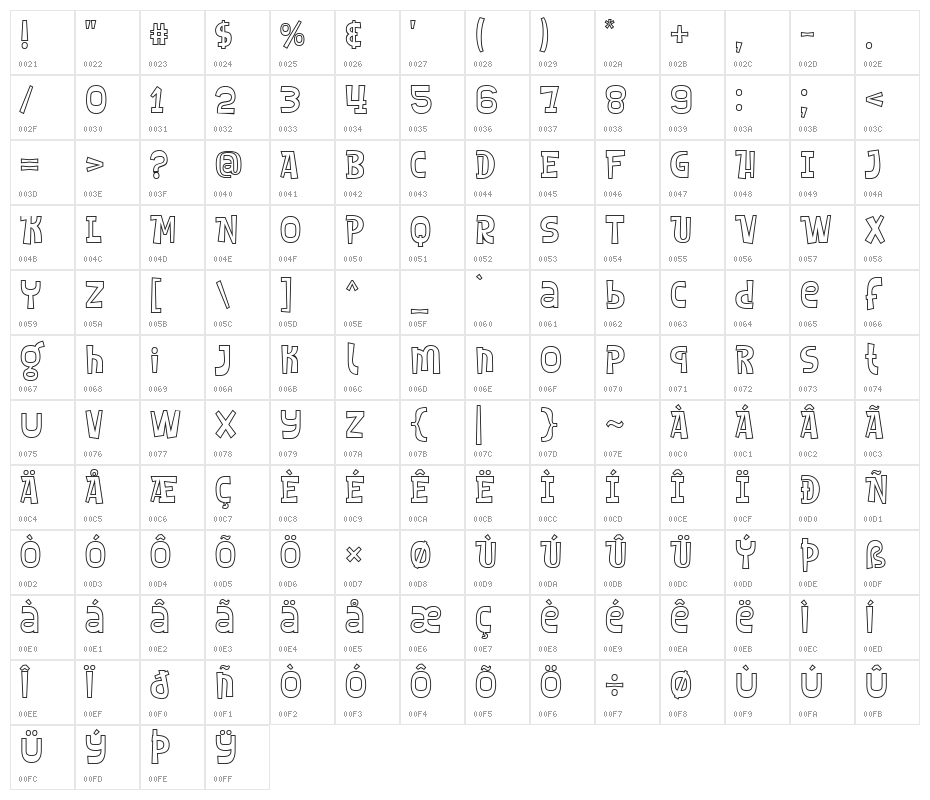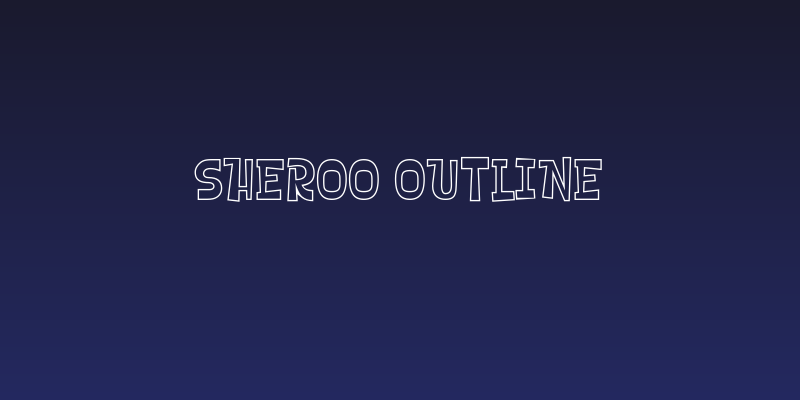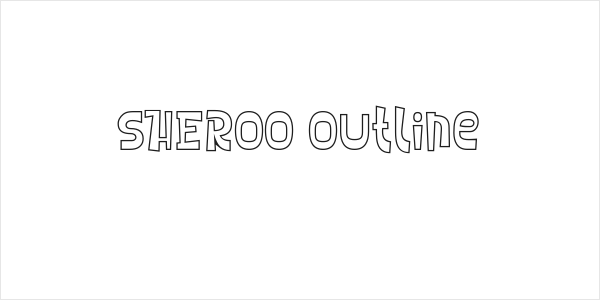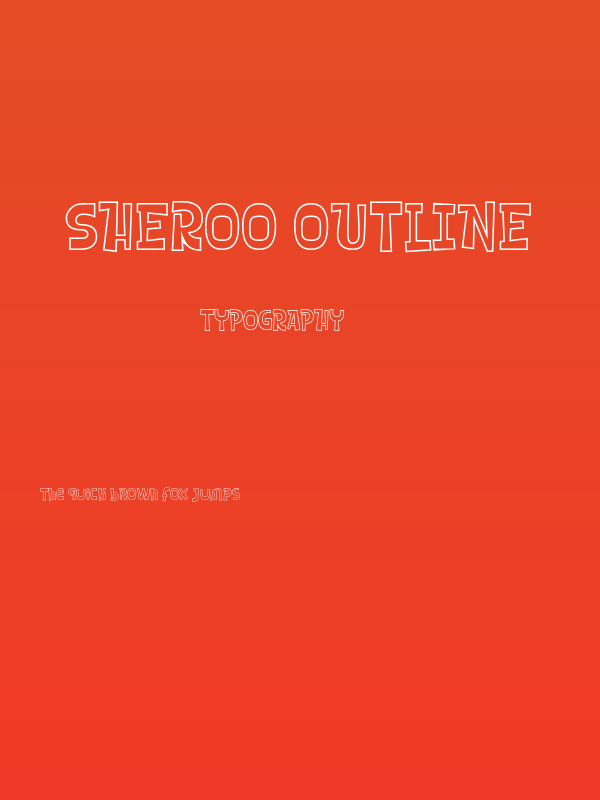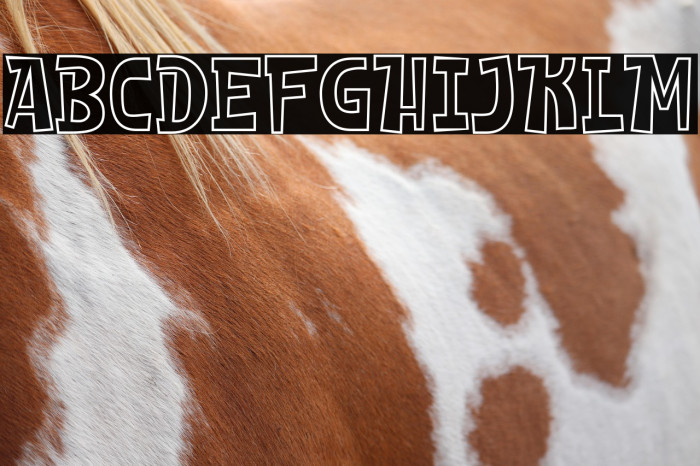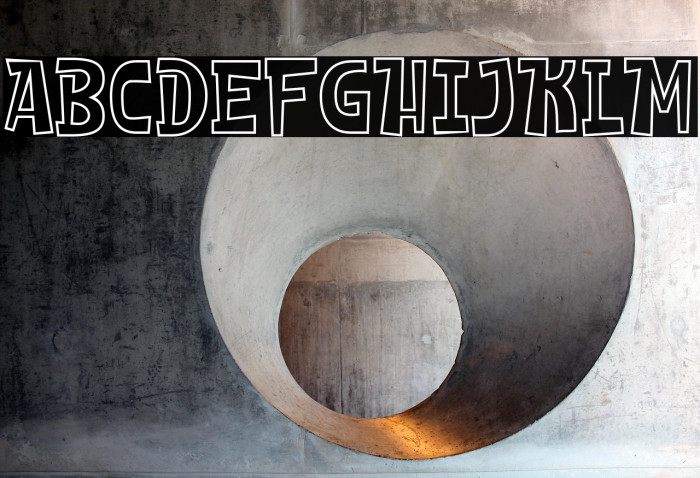
SHEROO Outline Font
SHEROO Outline Description
This font features a playful and bold outline style, characterized by its thick, uniform strokes that form the outer edges of each character. The design is geometric with a slightly rounded touch, giving it a friendly and approachable appearance. The uppercase and lowercase letters maintain a consistent style, with a slight variation in the curves and angles that add a unique flair. Numbers and special characters are designed to match the overall aesthetic, making them easily recognizable and cohesive with the alphabet. The font's outline nature makes it ideal for creating eye-catching designs where the text needs to stand out without being overly heavy.
| Overall Style | Playful, Modern |
| Proposed Projects | Ideal for posters, children's books, logos, and creative branding projects. |